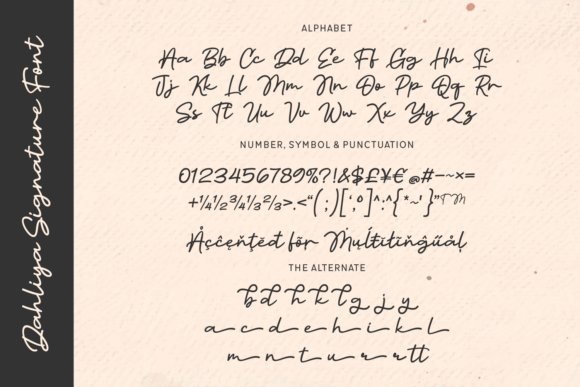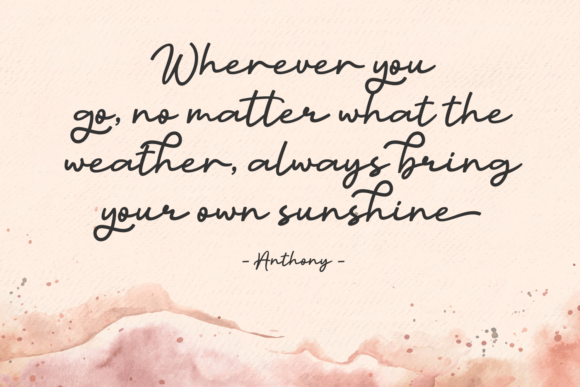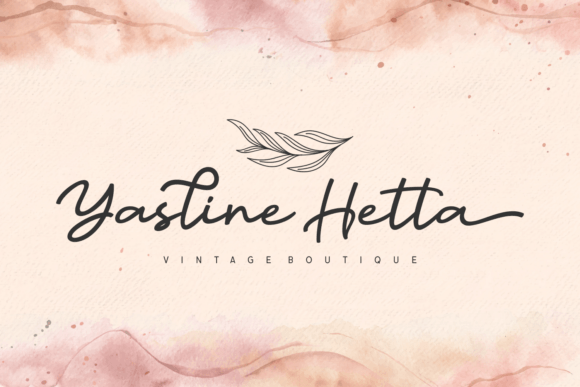
Adding a Personal Touch to Your Designs
Have you ever been stuck in a creative rut, searching for the perfect font to elevate your design project? We’ve all been there. It’s that moment when you need a font that not only conveys your message but also reflects your unique style and personality.
Enter the Dahliya Signature Font, a stunning monoline script font that combines modern elegance with a personal handwritten touch. This beautifully crafted font is designed to make your designs stand out, featuring smooth strokes and unique swashes that add a touch of sophistication to any project.
Whether you’re a designer looking to create a memorable brand identity or a social media enthusiast seeking to level up your aesthetic, the Dahliya Signature Font is a valuable addition to your toolkit. Its versatility and feminine design make it perfect for branding, logos, wedding invitations, and more.
Dahliya Signature Font Key Features
- Unique Characteristics: Features a unique, elegant, and cursive script style, ideal for creating a personal or professional signature, logos, or titles.
Dahliya Signature Font Review
Overall, I’m quite impressed with Dahliya Signature Font. It has a unique, elegant feel that’s perfect for creating a luxurious or vintage vibe in your designs. ✨ Here are some of the things that work well:
- Customization options: The font offers a wide range of customization options, including color, size, and style. This allows you to tailor the font to fit your specific design needs.
- High-resolution graphics: The font includes high-resolution graphics, which ensures that your designs will look sharp and clear, even when scaled up.
- Creative possibilities: The font’s unique design makes it perfect for creating eye-catching headlines, titles, and other design elements.
- Limited language support: The font may not support all languages, which could be a problem if you need to create designs for international audiences.
- Not ideal for body text: While the font is great for headlines and titles, it may not be the best choice for body text, as it can be difficult to read in large quantities.
Overall, I would recommend Dahliya Signature Font to designers looking for a unique and elegant font for their projects. While it may have some limitations, its creative possibilities and customization options make it a valuable addition to any design toolkit. ⚠️ Just be mindful of the limitations mentioned above and use the font accordingly.
For a more polished look, use the font in combination with a subtle gradient or texture overlay.
For a more creative look, experiment with combining the font with custom shapes or illustrations.
For a more professional look, use the font in combination with a clean and simple design.
The Dahliya Signature Font is ideal for:
– Stationery and business cards
– Digital products and e-books
Remember to experiment with different font sizes, colors, and styles to get the most out of the Dahliya Signature Font.